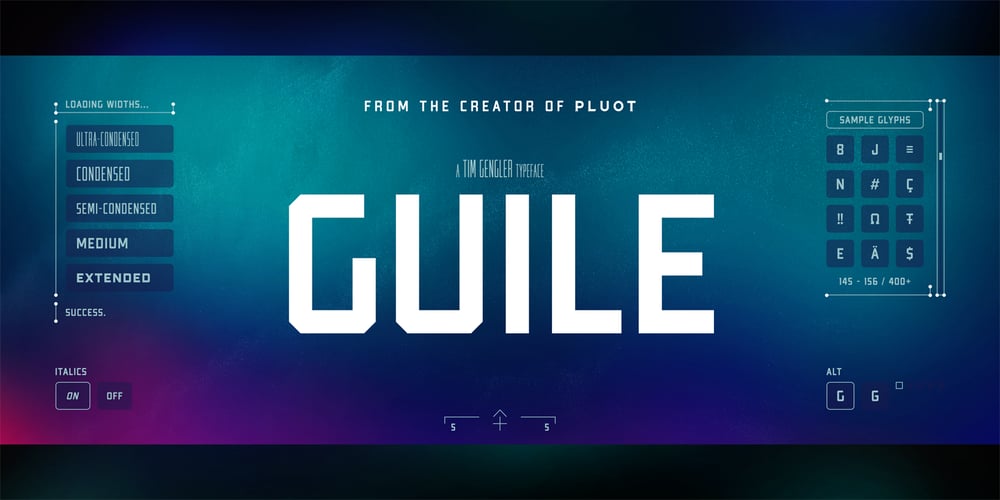
Guile
Guile font
Guile Font Family was designed by Tim Gengler and published by Bunny Dojo. Guile contains 10 styles and family package options. A timeless and mighty sans-serif, Guile’s chiseled forms make the font ideal for reaching into history, while its minimalism and balance are fit for propelling into the future. Guile voraciously absorbs and enhances the style of its surroundings. In sports, it’s a true team player, from the jerseys to the on-air presentation. In film, it’s a blockbuster star, from the title treatment to the billing block.